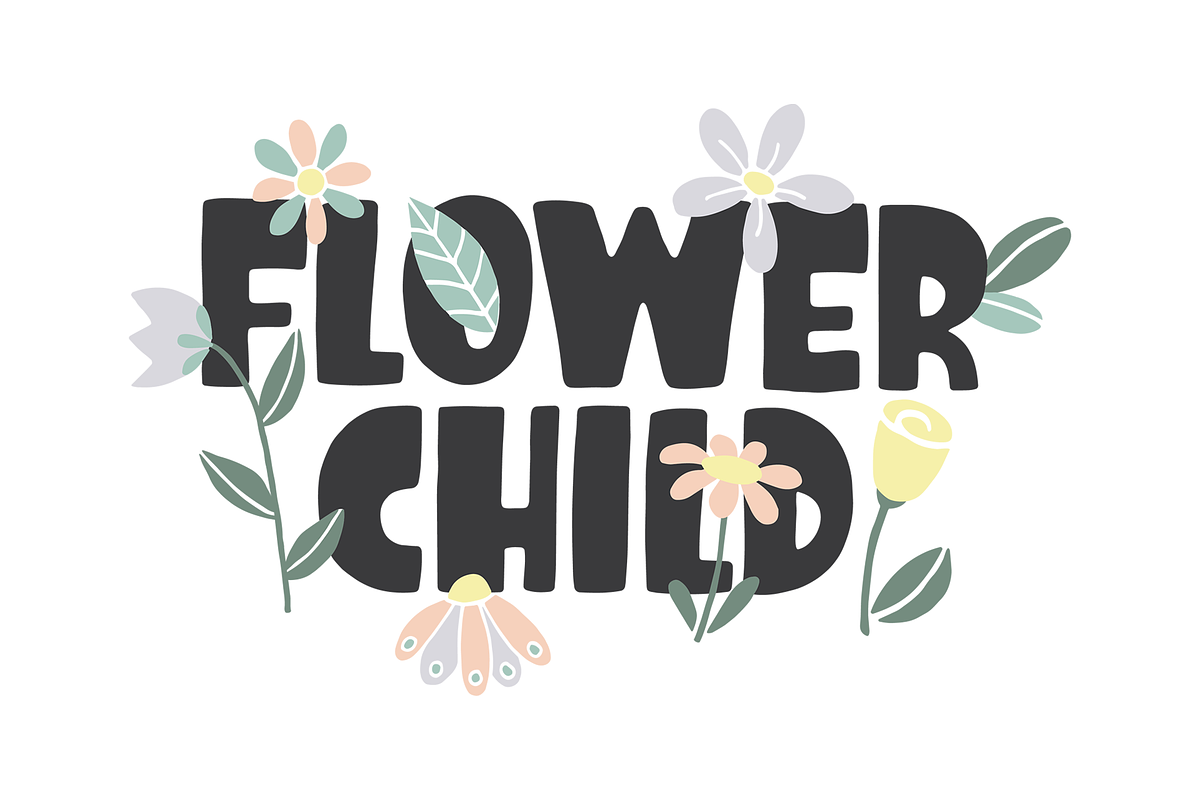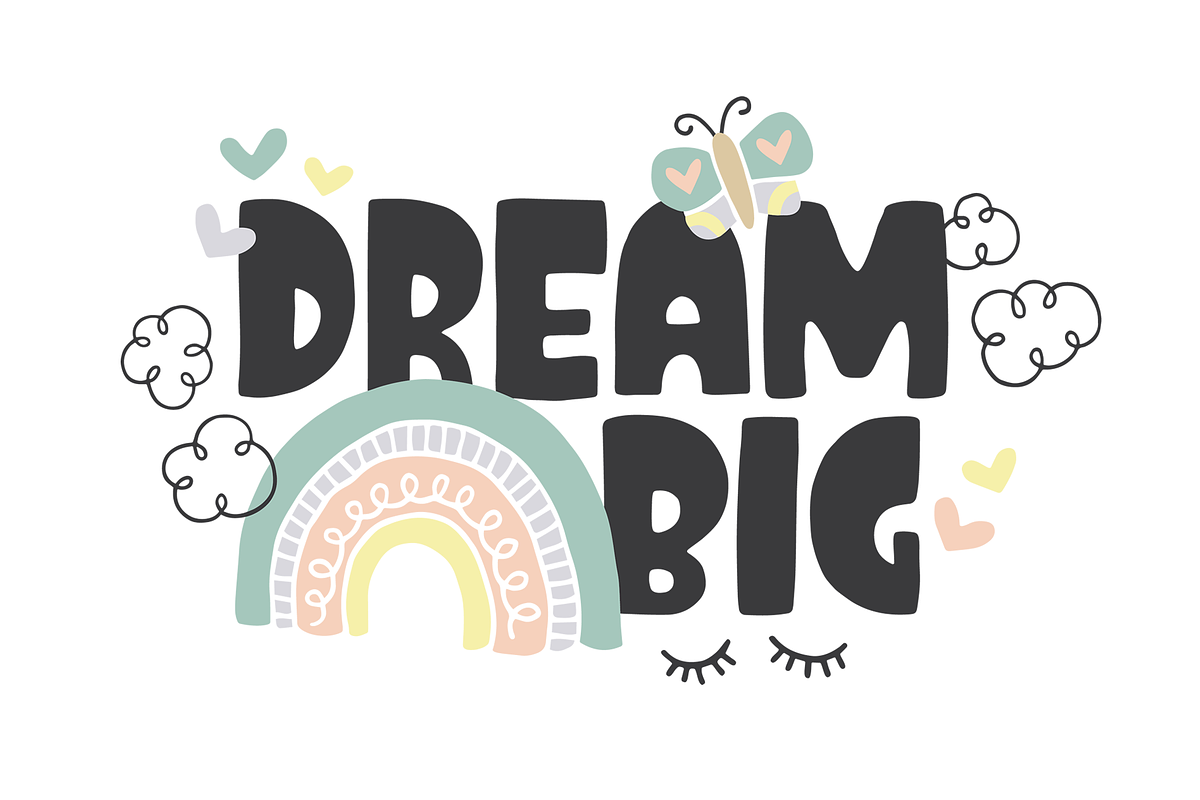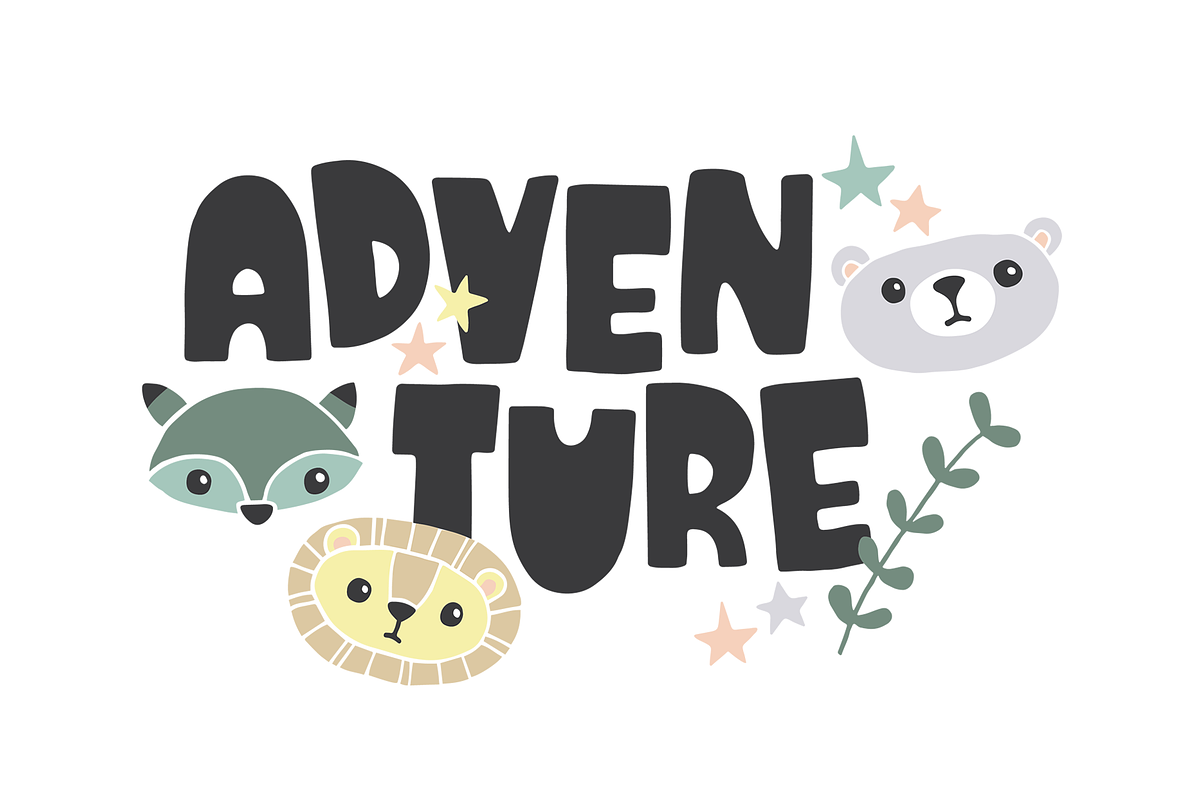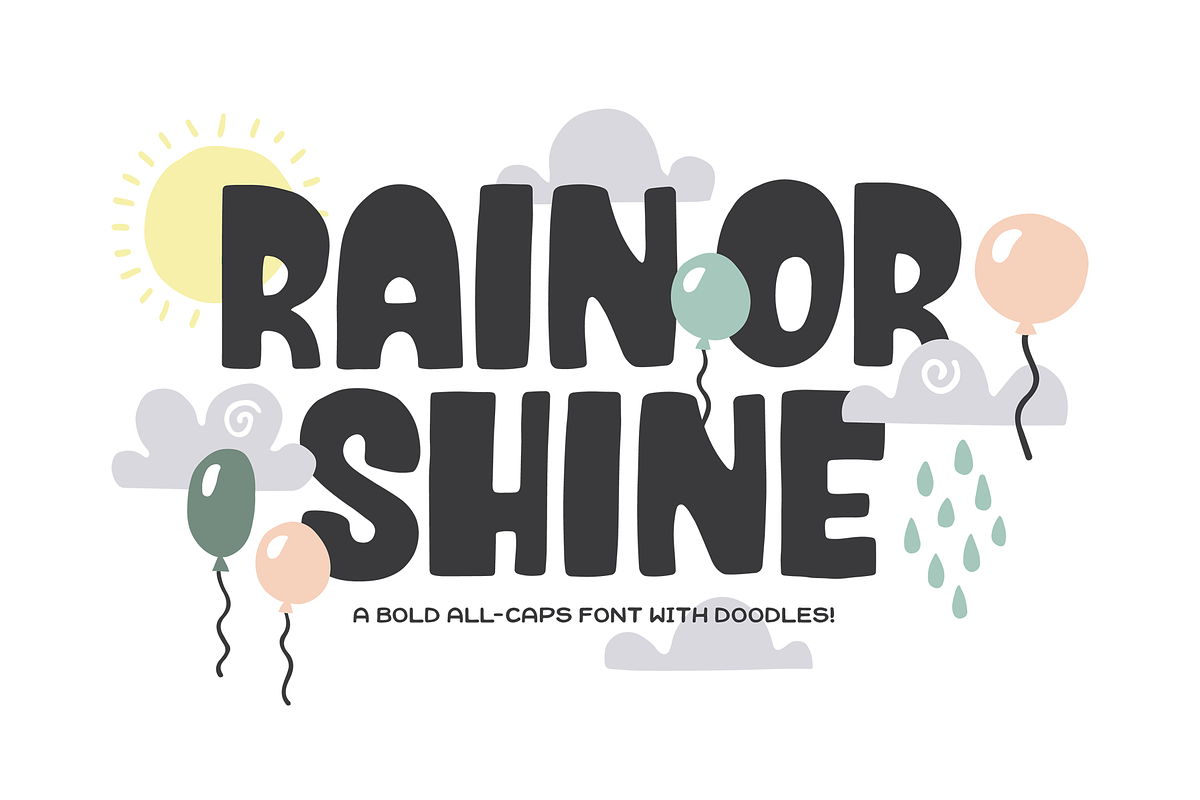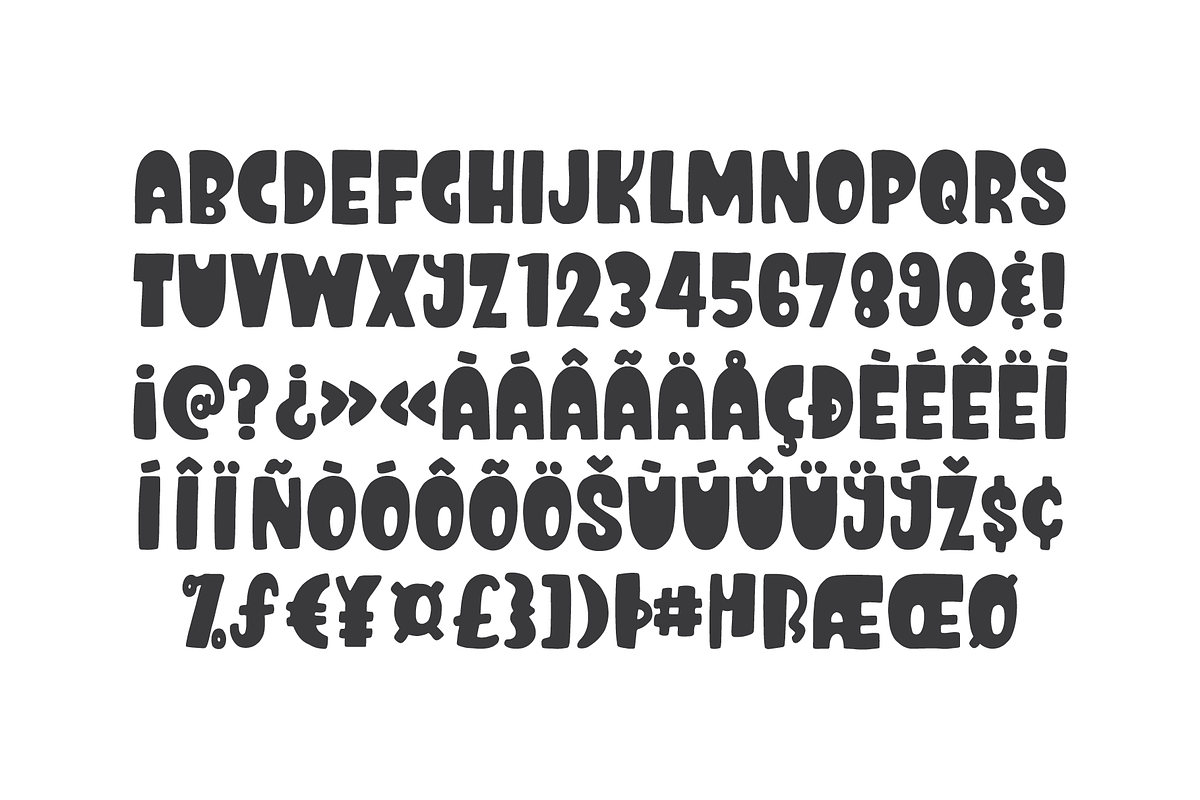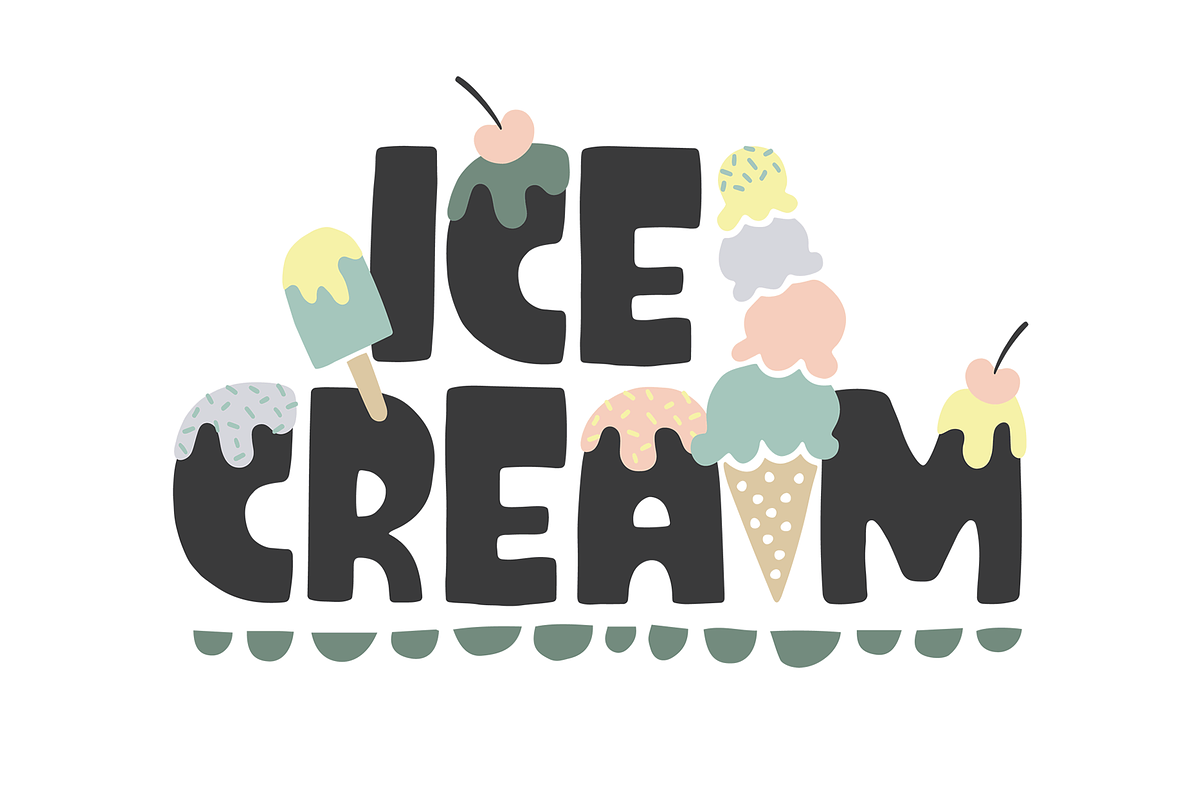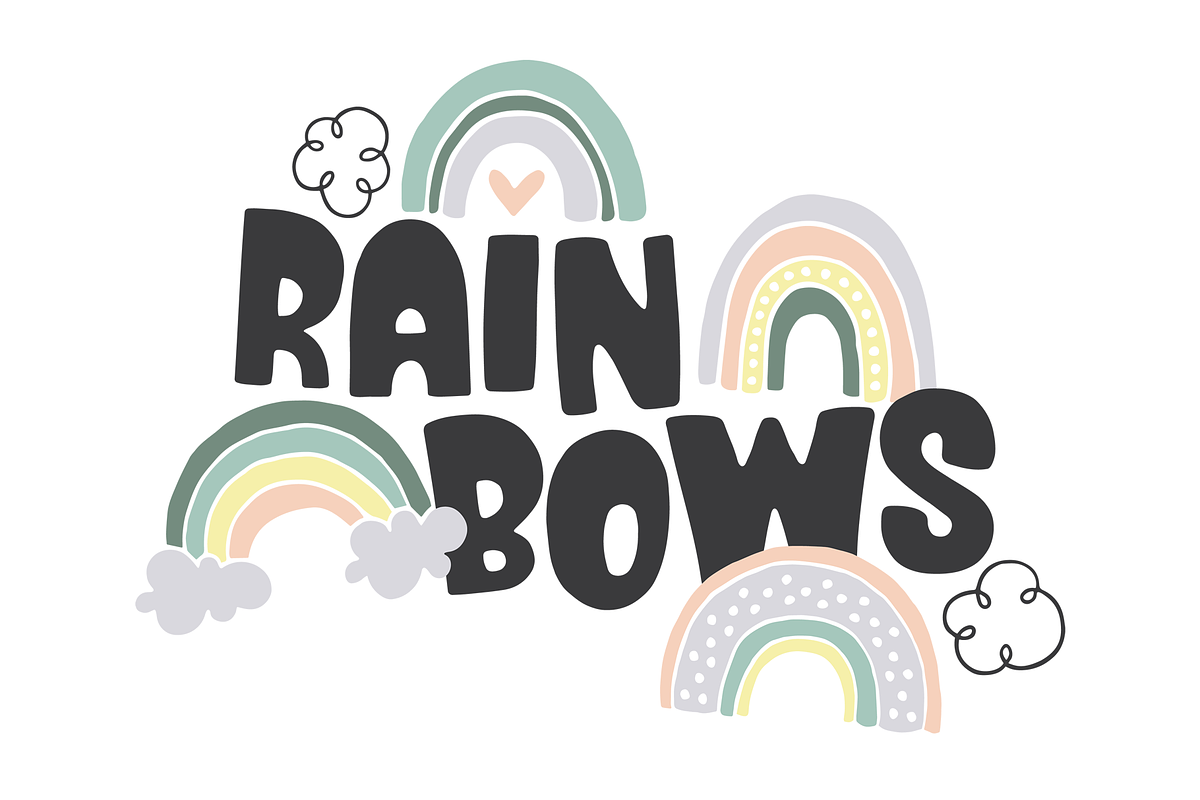
Rain or Shine Font + Doodles!
Rain or Shine is a bold - yet friendly - all caps font. It comes with over 80 fun and creative doodles in vector format as well as transparent background pngs. Everything you need to create adorable typographic prints, invitations, tshirts, whatever you can think up!